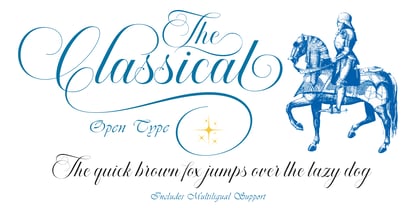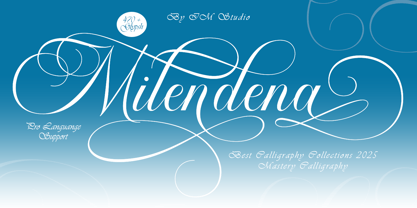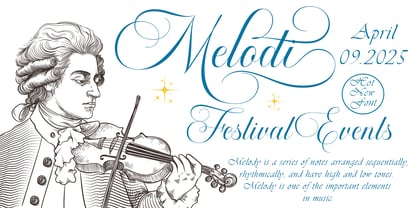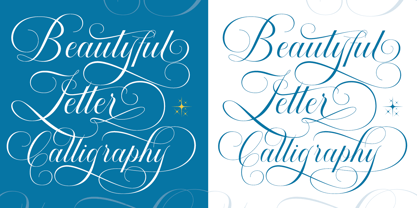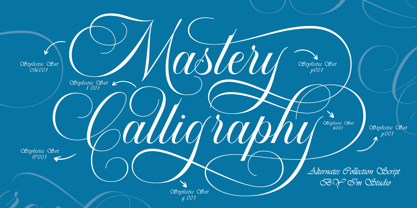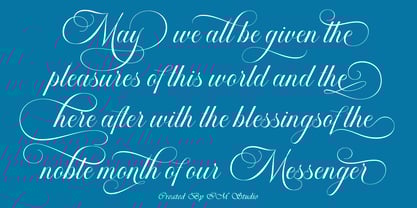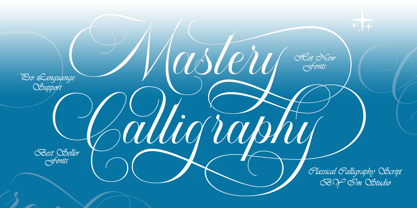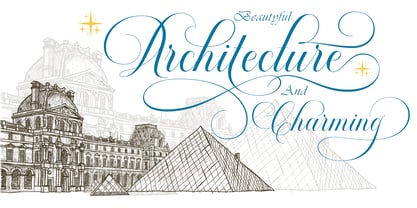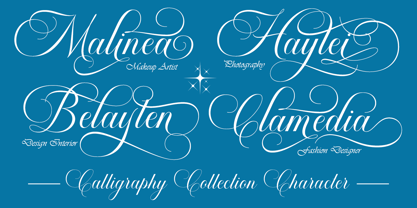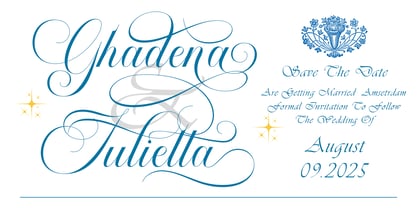
Mastery Calligraphy
by IM Studio
The Mastery Calligraphy Font Family was designed by Ikhsan Maulana and published by IM Studio. Mastery Calligraphy contains 1 styles. More about this family
Mastery Calligraphy is a calligraphy font that comes with beautifully transformed characters, a kind of classic decorative copper script with a modern touch, designed with high detail to bring a stylish elegance. Mastery Calligraphy appeals as a typeface that is smooth, clean, feminine, sensual, glamorous, simple and very easy to read, because there are many luxurious letter connections. I also offer a number of decent style alternatives for many letters. The classic style is perfect for applying in various formal forms such as invitations, labels, restaurant menus, logos, fashion, makeup, stationery, novels, magazines, books, greeting/wedding cards, packaging, labels or any type of advertising purposes.
Designers: Ikhsan Maulana
Foundry: IM Studio